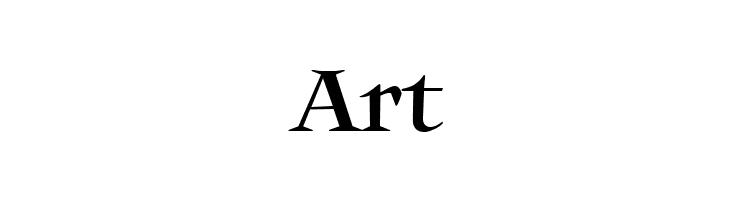
• Autumnilla
A lively and expressive handwritten font with dynamic strokes.
• AutumnTwo
A bold, decorative font with sharp, angular designs and intricate detailing.
• AuturiumDEMO-Regular
An elegant, cursive font with a calligraphic style and fluid character connections.
• Auxerre 45 Light reduced
A classic serif font with elegant thin strokes and pronounced serifs.
• Auxerre 46 Light Italic reduced
A refined, light, italic serif font with elegant slanted characters.
• Auxerre 55 Regular reduced
A classic serif font with sharp serifs and moderate contrast, blending traditional and modern elements.
• Auxerre 56 Italic reduced
A classic italic serif font with elegant, flowing lines and moderate contrast.
• Auxerre 65 Medium reduced
A classic serif font with bold, elegant curves and medium weight.
• Auxerre 66 Medium Italic reduced
An elegant serif font with a classic italic slant and moderate stroke contrast.
• Auxerre 75 Bold reduced
A bold serif font with sharp serifs and strong vertical stress.